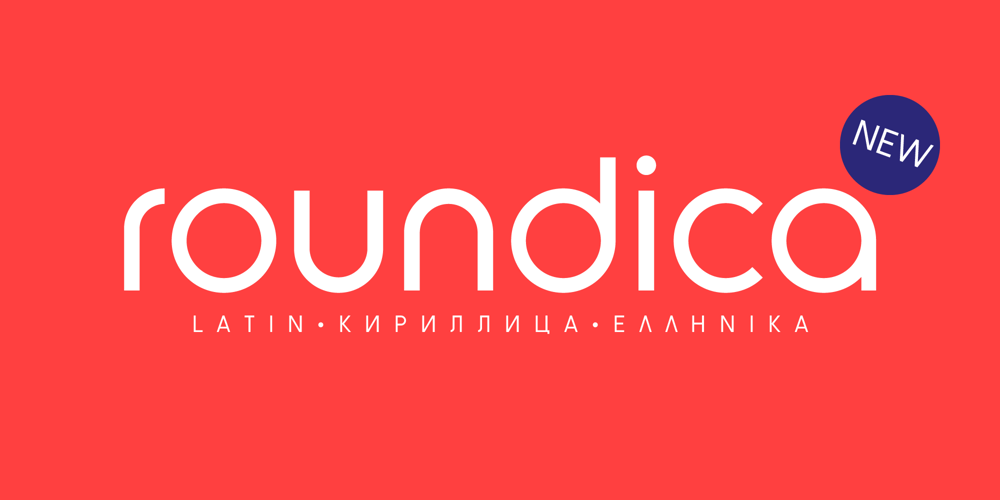
Roundica Font Family was designed by Kolyu Kolev and published by Fontease. Roundica contains 1 styles and family package options. Roundica is a modern geometric typeface inspired by both classic typefaces of the 20th century like Avantgarde, Bauhaus, Futura, Helvetica and some modern fonts such as Abeat By Kai, Comfortaa, Gotham. Started in 2018 Roundica is the main reason for the appearance of Fontease Type Foundry.With its 834 glyphs Roundica includes extended Latin language support, but also Cyrillic and Greek.Designed with OpenType features like ligatures, fractions, small capitals etc., Roundica is perfectly suited for graphic design and any display use.